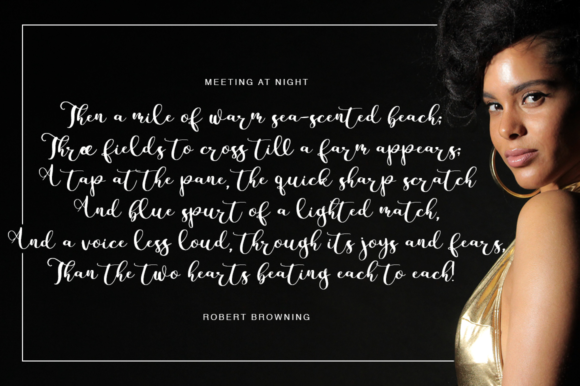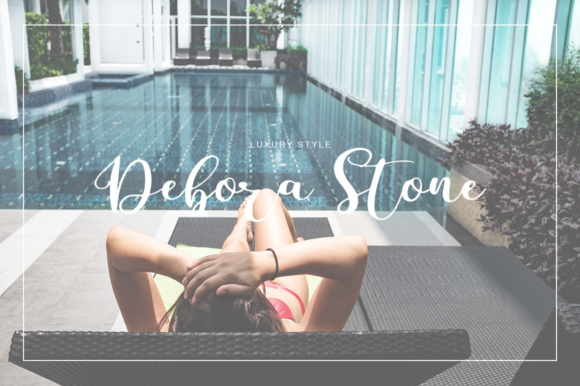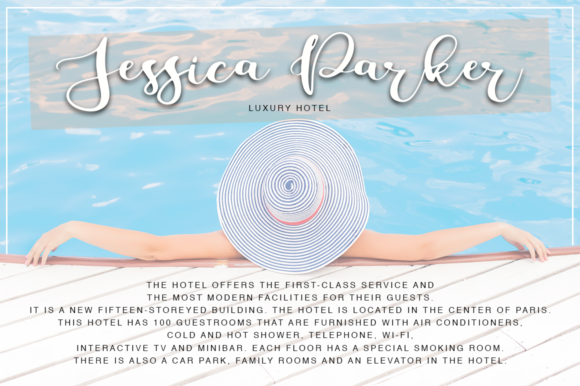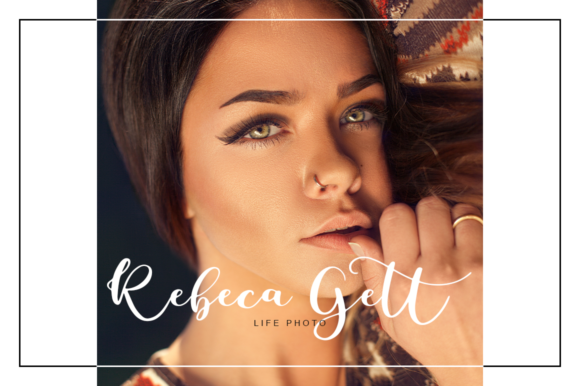
Parabellum Font
About Parabellum Font
The Parabellum is a new, fresh, handmade calligraphy font. It’s suitable for greeting cards, branding materials, business cards, quotes, posters, and more!